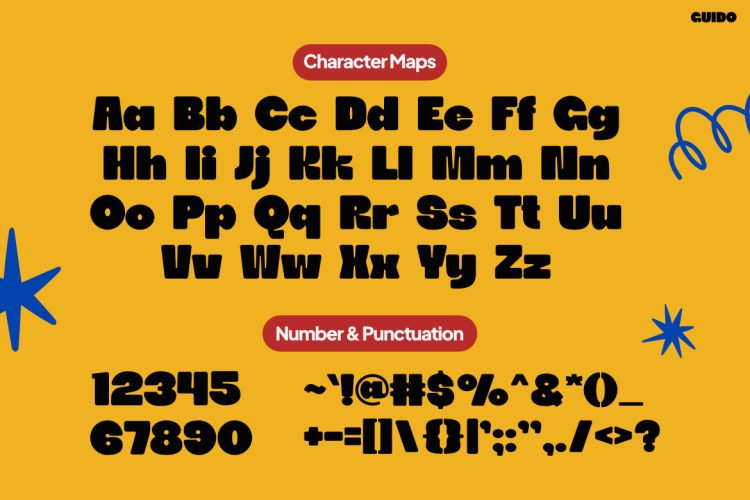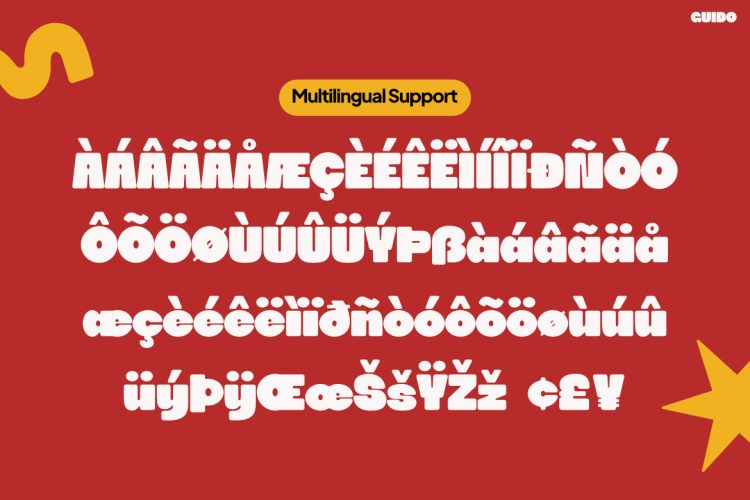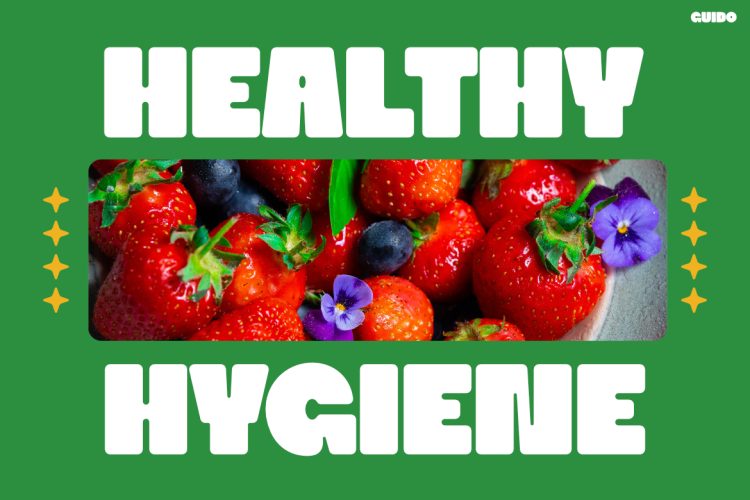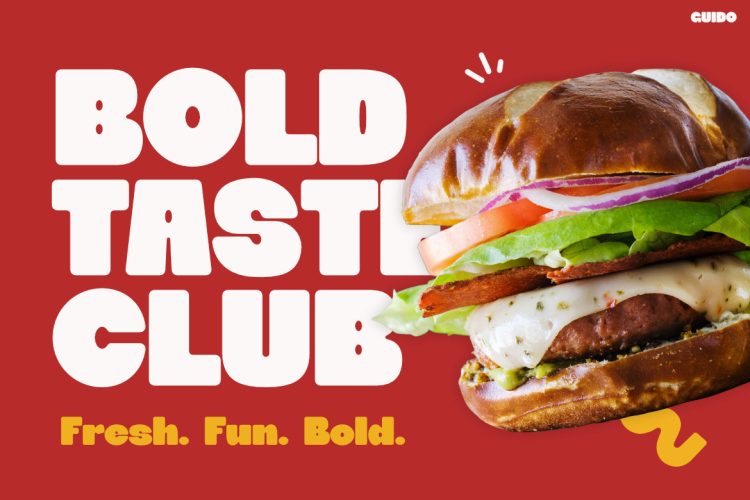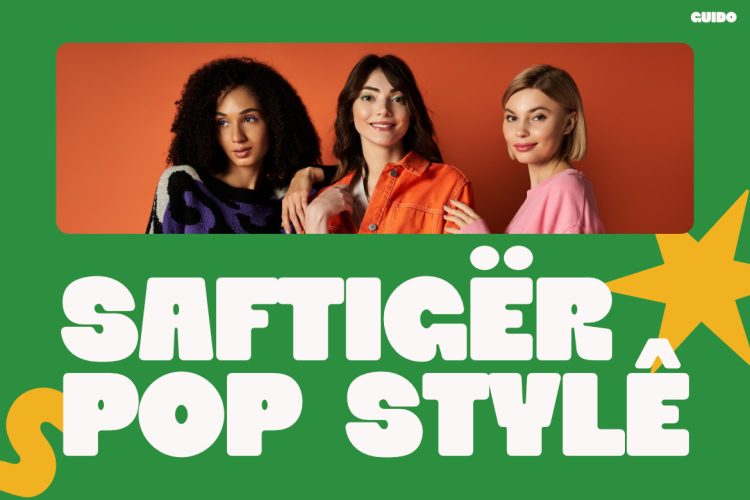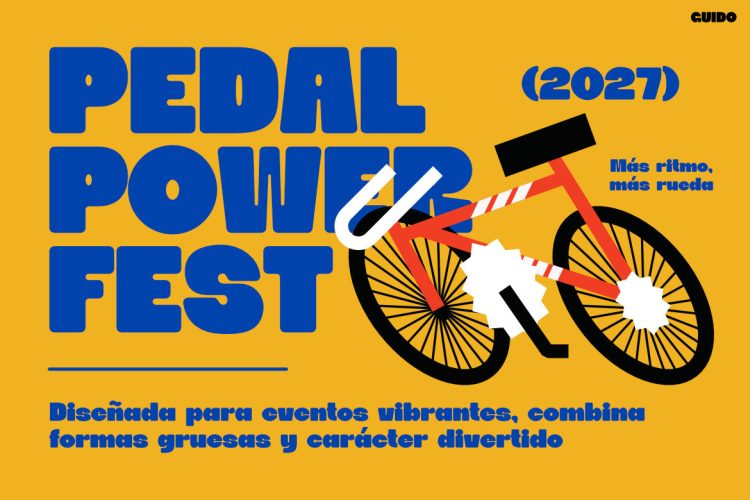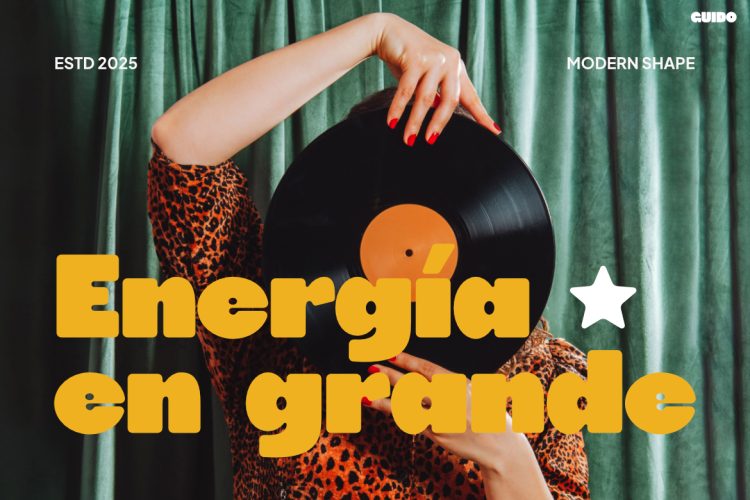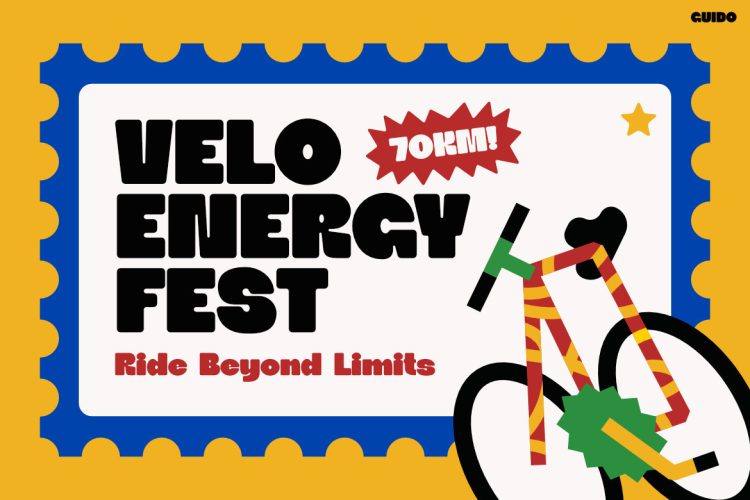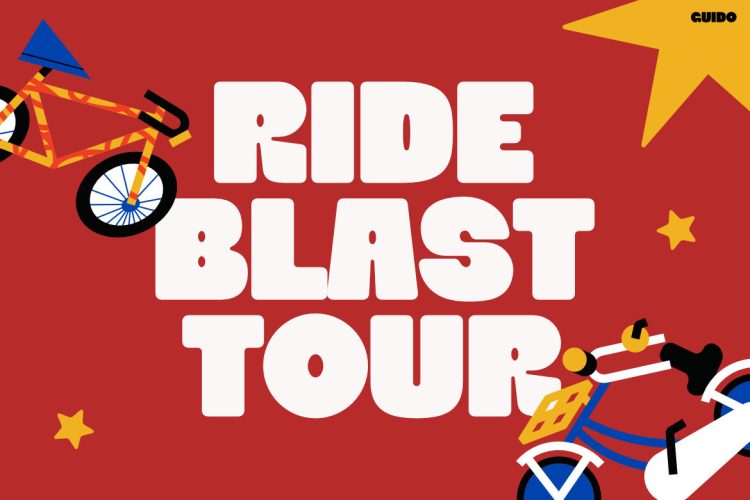
Guido โ Bold Retro Blast Font
Retro Font Guido is a bold and energetic display typeface that captures the essence of vintage design with a modern playful twist. Its chunky letterforms, rounded edges, and strong visual weight create an eye-catching presence that instantly stands out. Because of its retro-inspired style, the font brings nostalgic vibes while still feeling fresh and dynamic. As a result, every word appears powerful, fun, and highly readable. Moreover, the bold structure makes it perfect for headlines, ensuring your message grabs attention at first glance while maintaining clarity across different sizes and layouts.
Guido combines classic retro aesthetics with a modern design approach. Each letter is crafted with smooth curves and thick strokes, creating a balanced yet impactful look. Therefore, the font delivers both personality and clarity in every composition, With support for 67 languages, designers and creators can communicate for a global audience.
In addition, this font performs exceptionally well in bold and expressive design projects. For example, it is ideal for posters, branding, merchandise, and promotional graphics. Furthermore, its playful retro style makes it perfect for themes like vintage events, fun campaigns, and creative advertisements. Because of its strong character, Guido works great in both digital and print formats while maintaining visual consistency. It also pairs well with bright color palettes and illustrative elements, enhancing the overall retro feel of your design.
Retro Font Guido is perfect for designers, creatives, marketers, and brand owners. It is especially suitable for retro posters, bold branding, merchandise, social media graphics, event promotions, and eye-catching headlines.